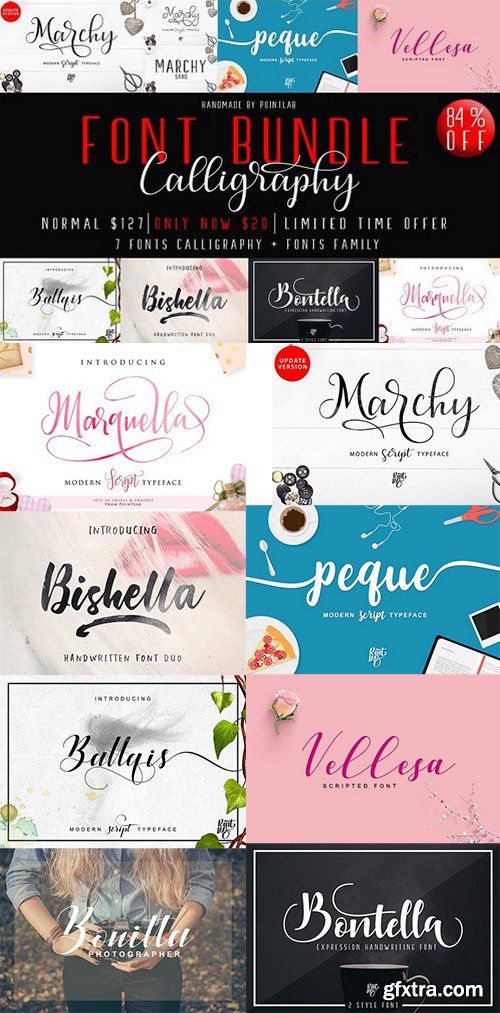
Font Bundle Calligrapy
If you are looking to add a touch of elegance to your current project, do not miss from a great bundle that comes in a limited time. You'll get yourself a fabulous collection of 7 modern script fonts + Font Family, each featuring loads of OpenType Features and multiple languages. Gorgeous, modern and created by hand, this magnificent collection is sure to give your typeface toolbox the curvaceous lift it deserves.
- Marchy script
- Marchy Sans
- Marchy line
- Bontella Script
- Bontella Extra Script
- Vellesa Script
- Ballqis Script
- Bishella Script
- Peque Script
- Marquella Brush